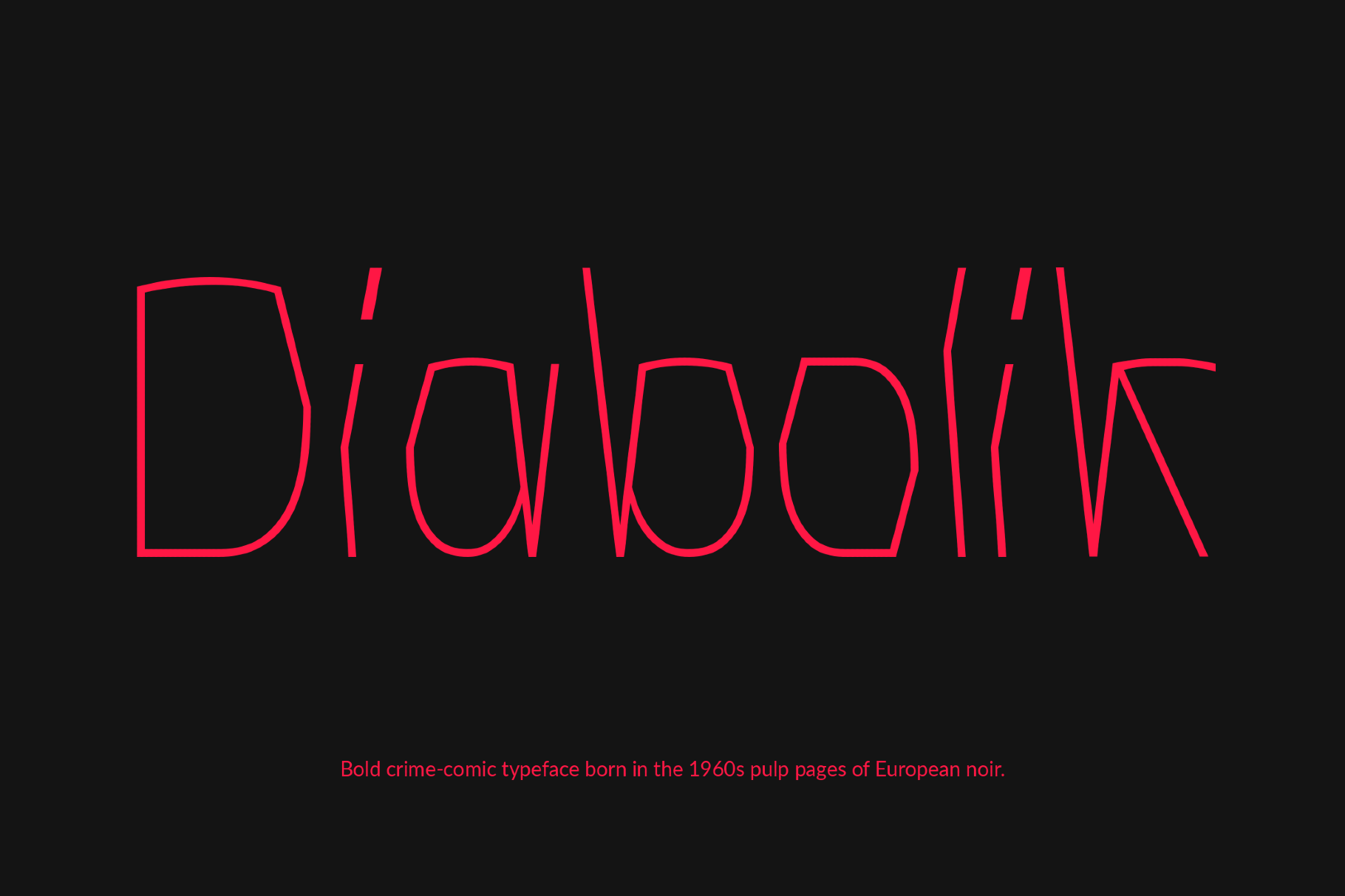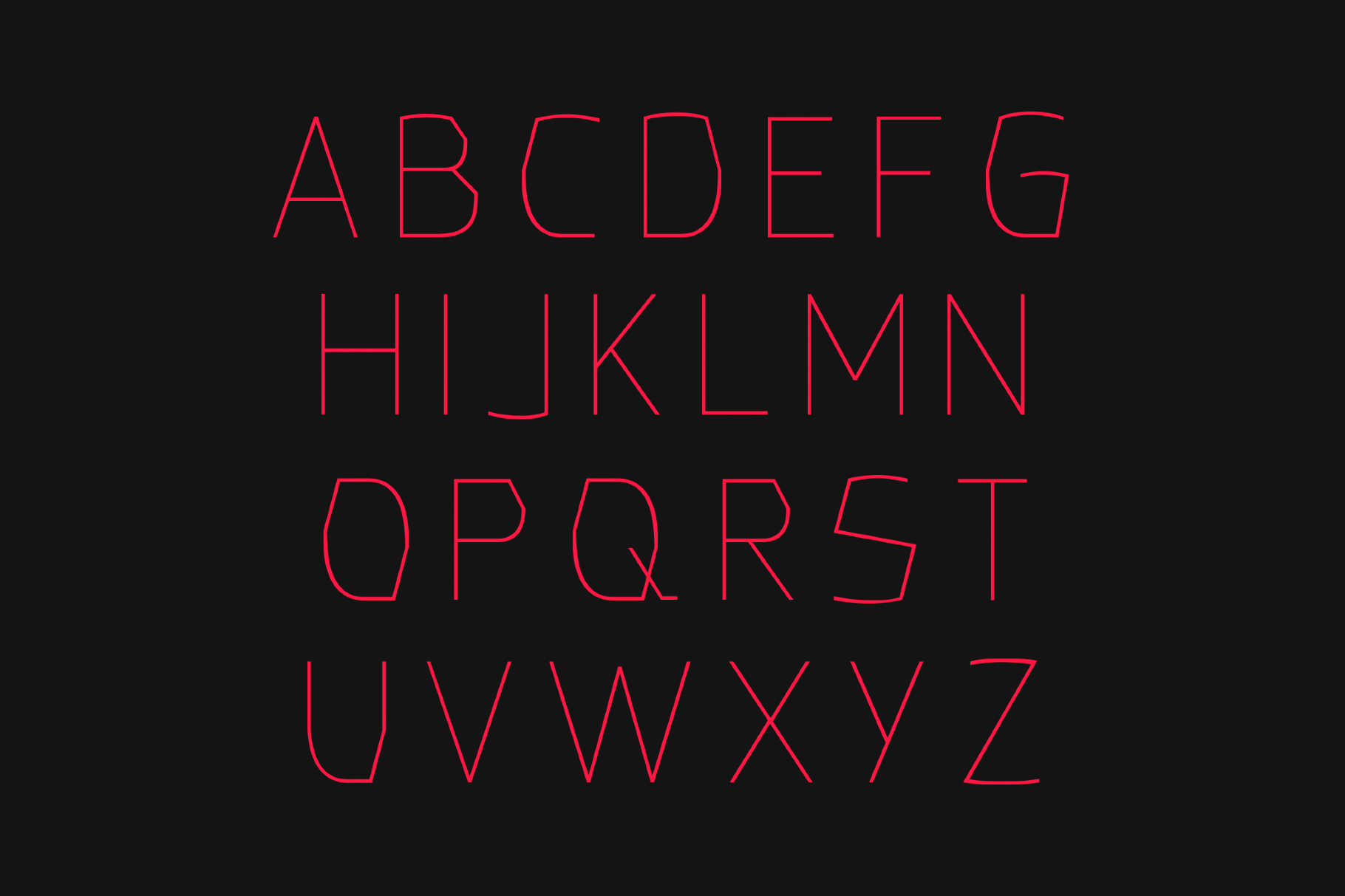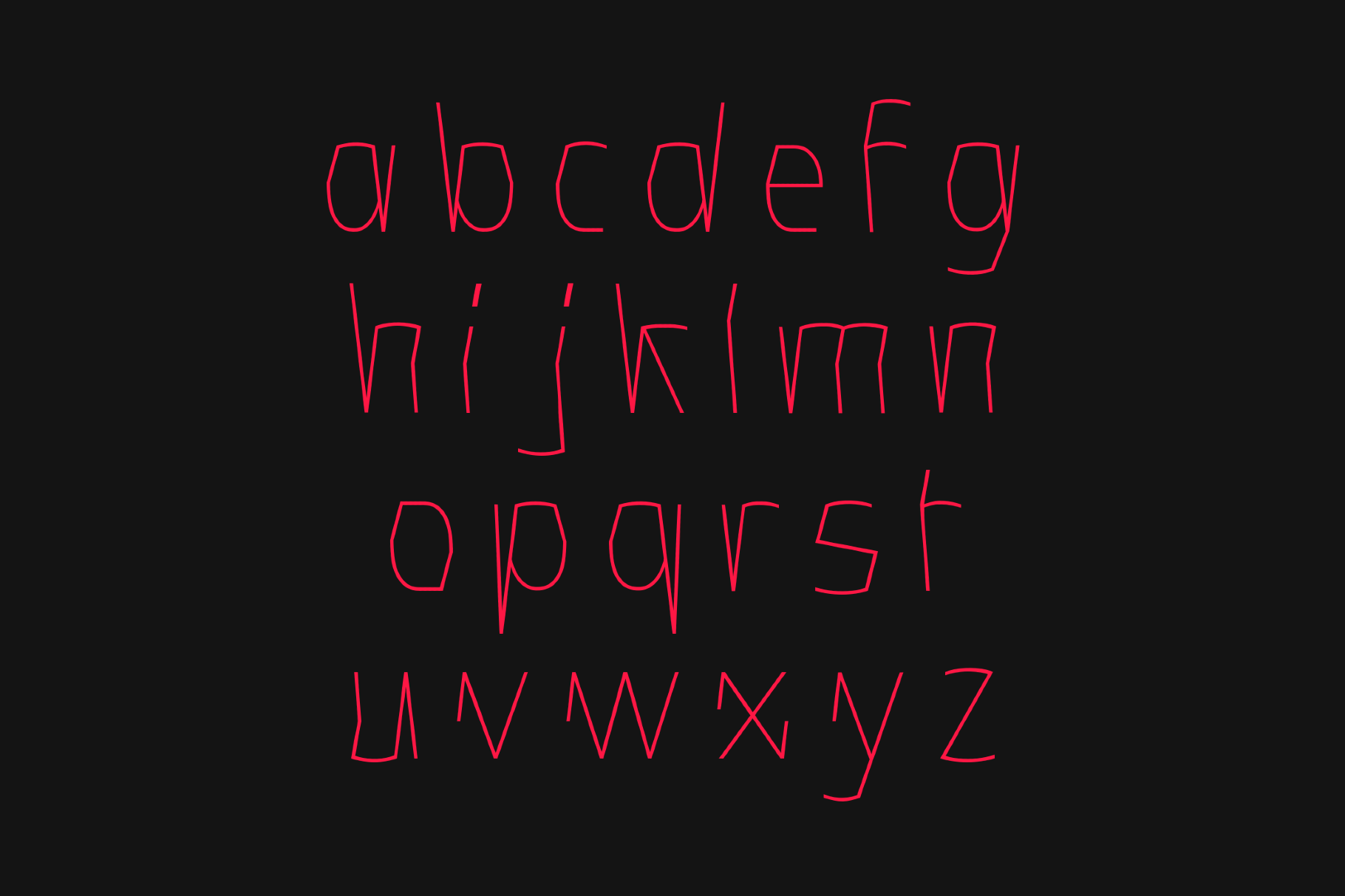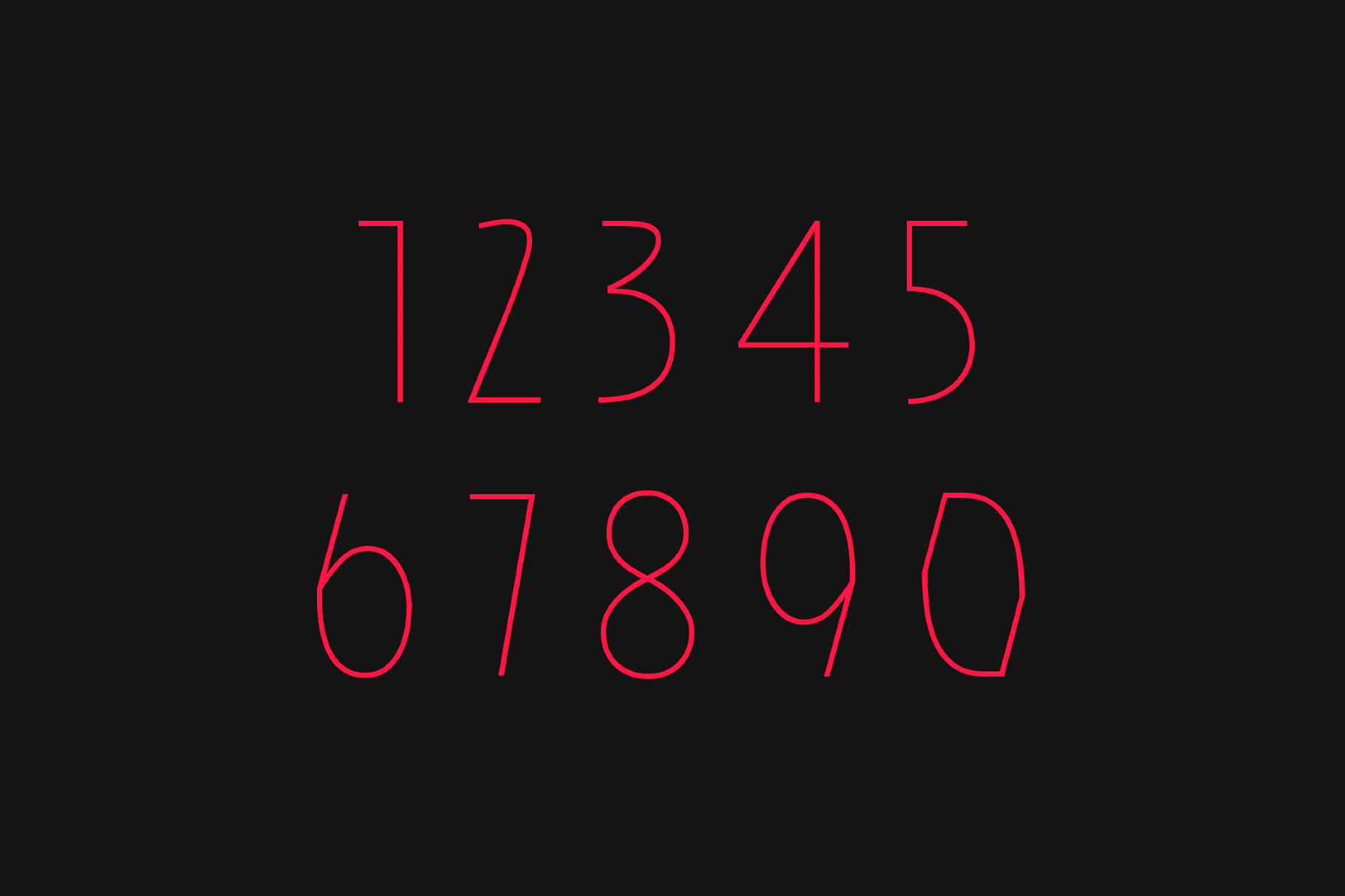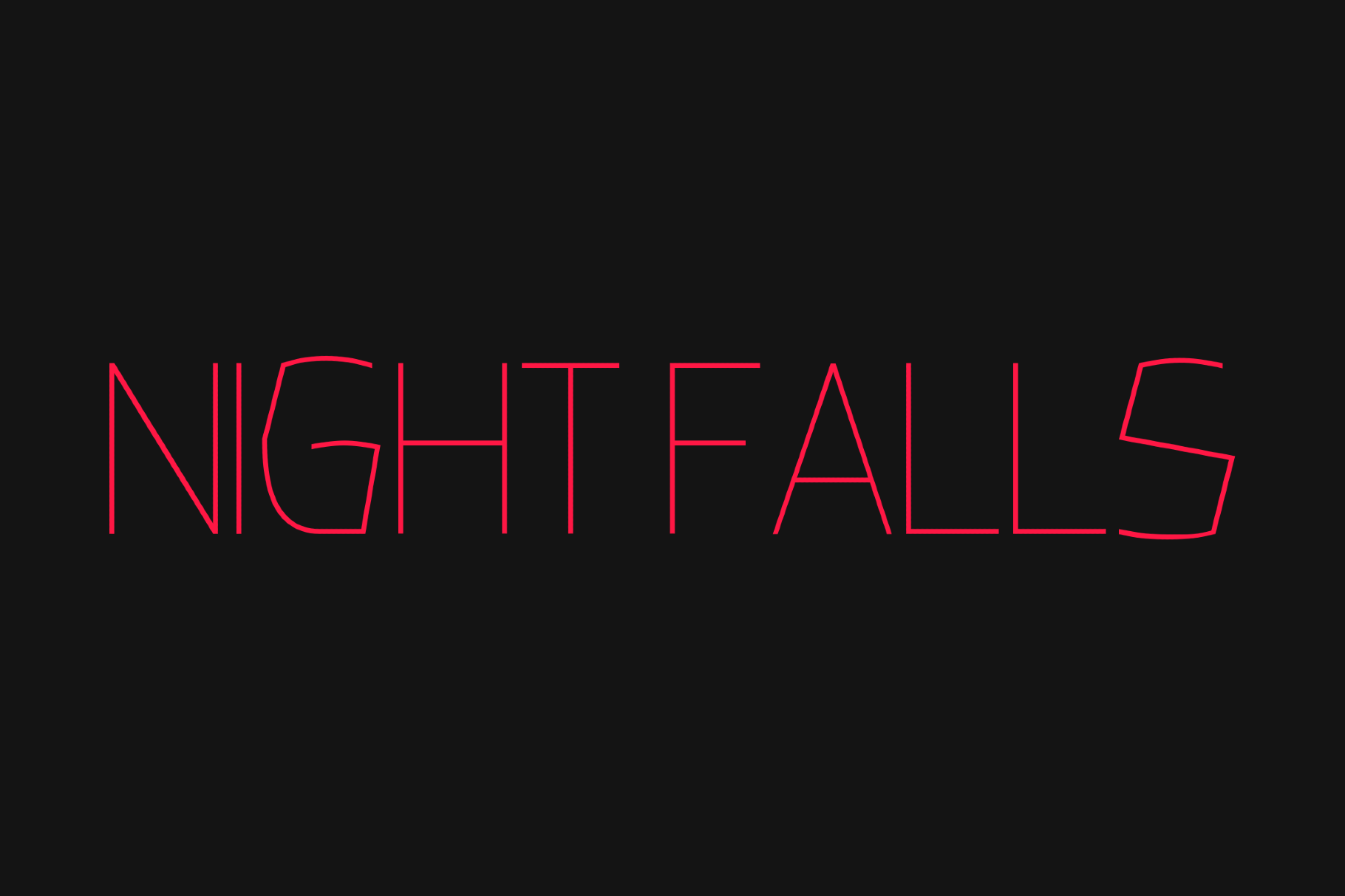
Diabolik - Messy Handwritten Font
Diabolik is an ultra-thin font — geometric at a distance, quietly sinister up close. It works for crime fiction cover design, noir editorial headers, fashion branding with an edge, horror film title sequences, limited-edition print art, cocktail bar identity, poster typography, and dark visual projects that need elegance and threat in equal measure.